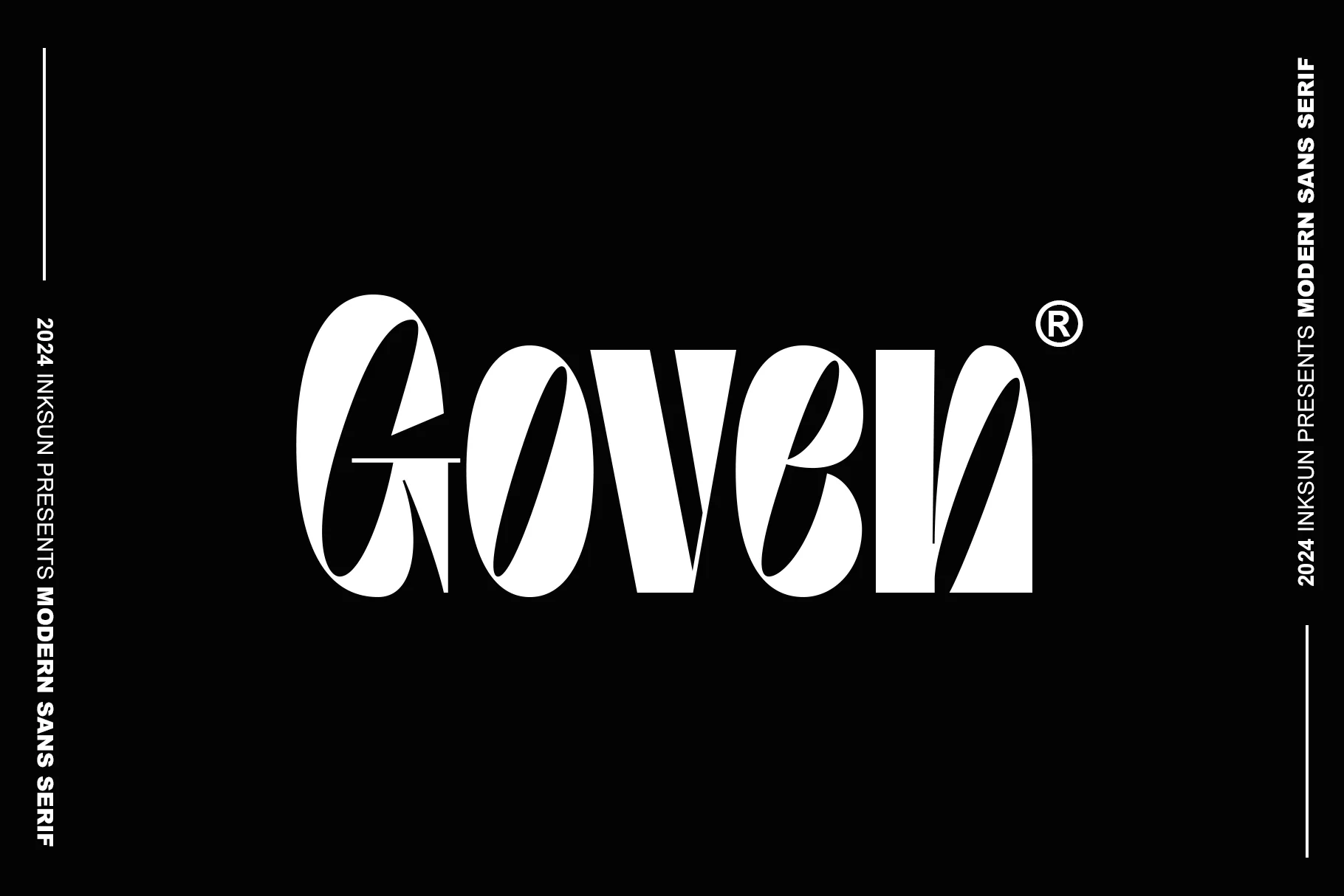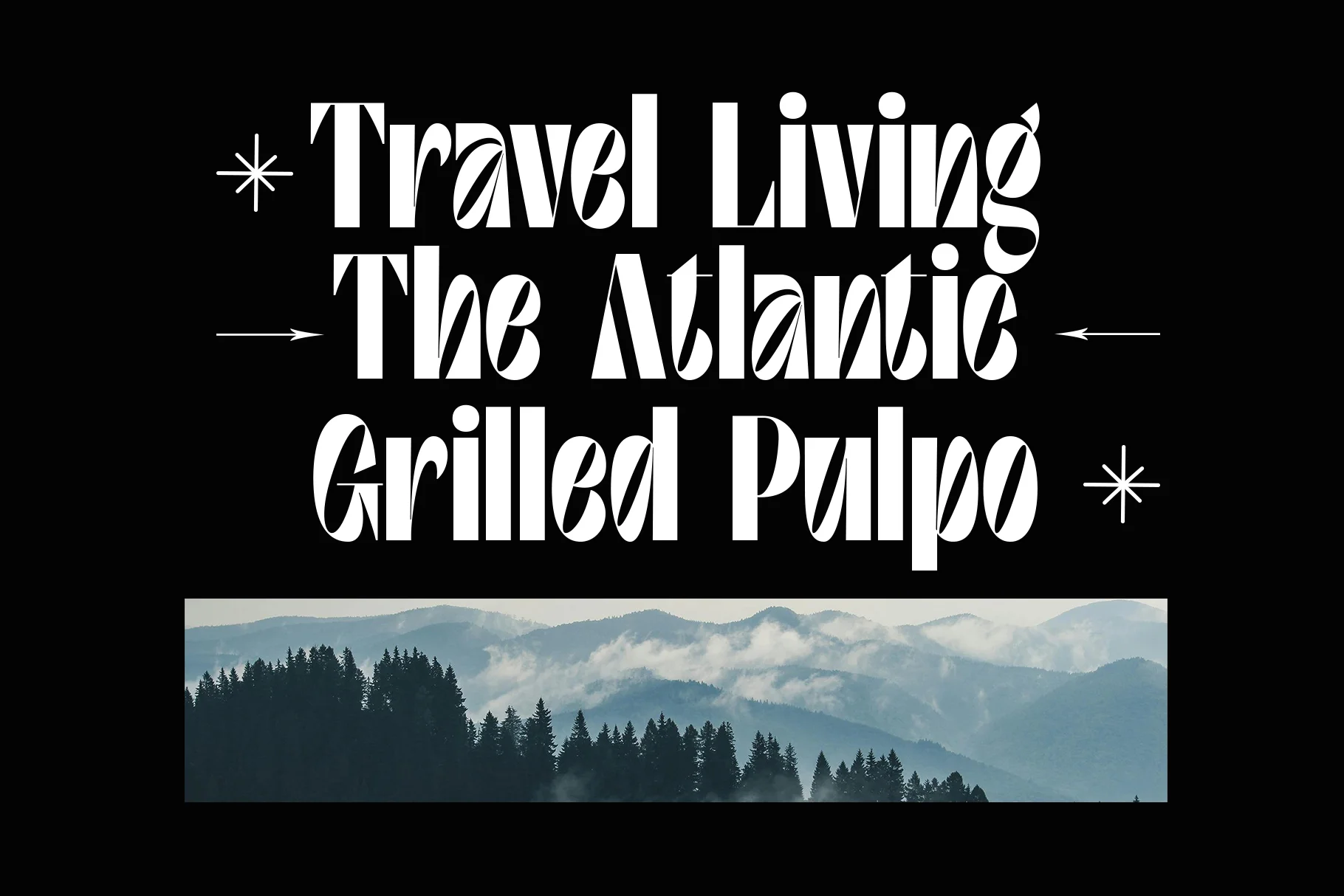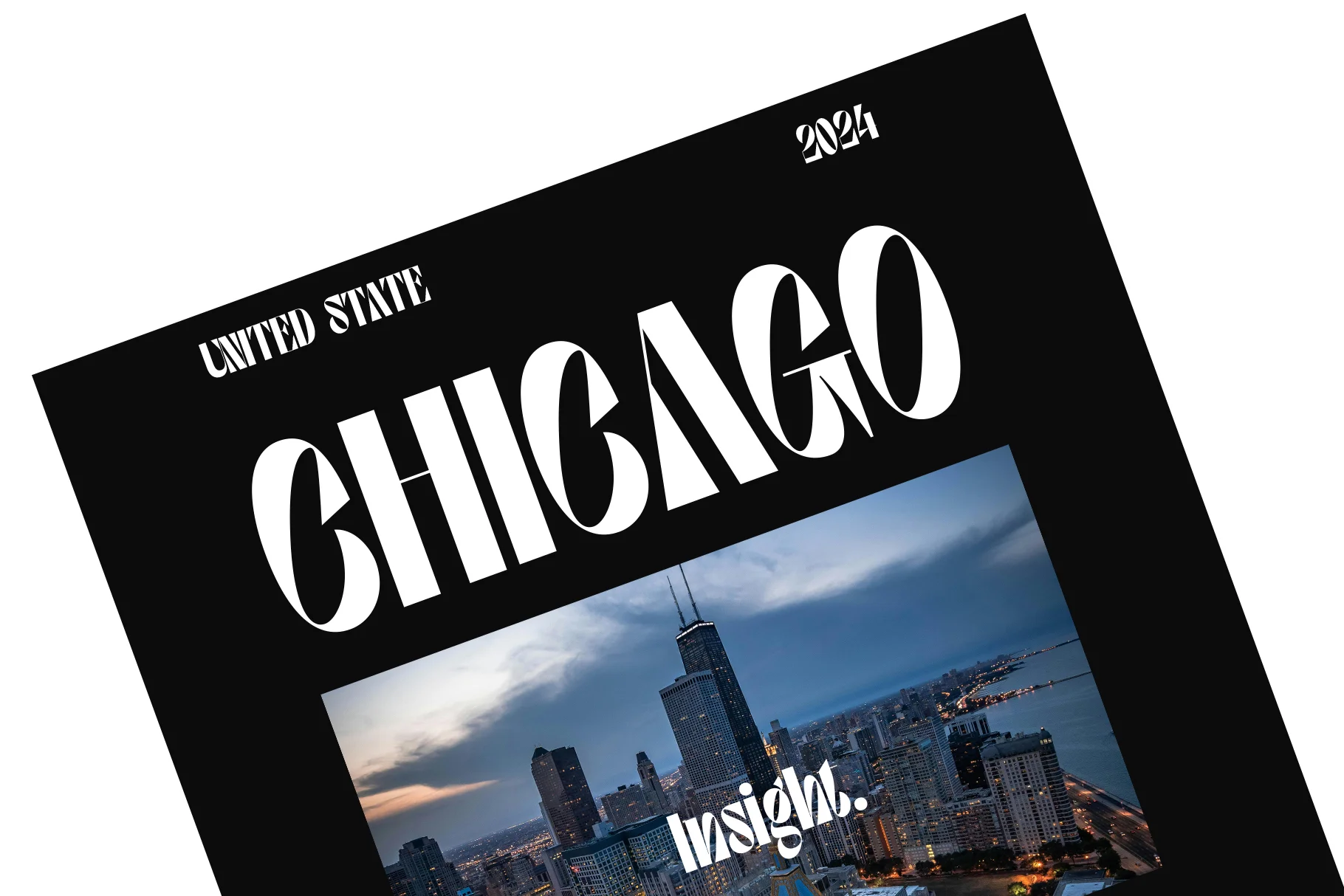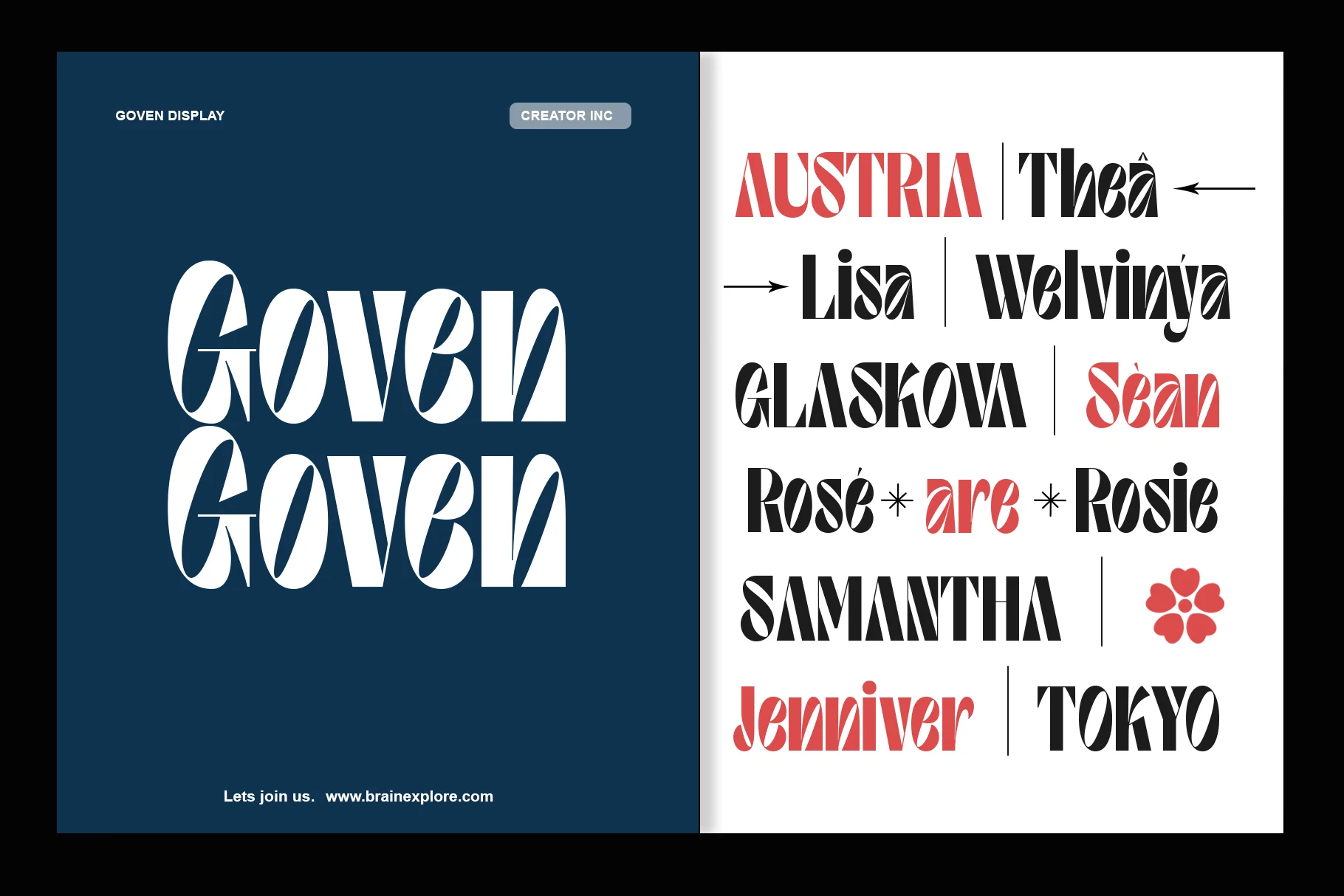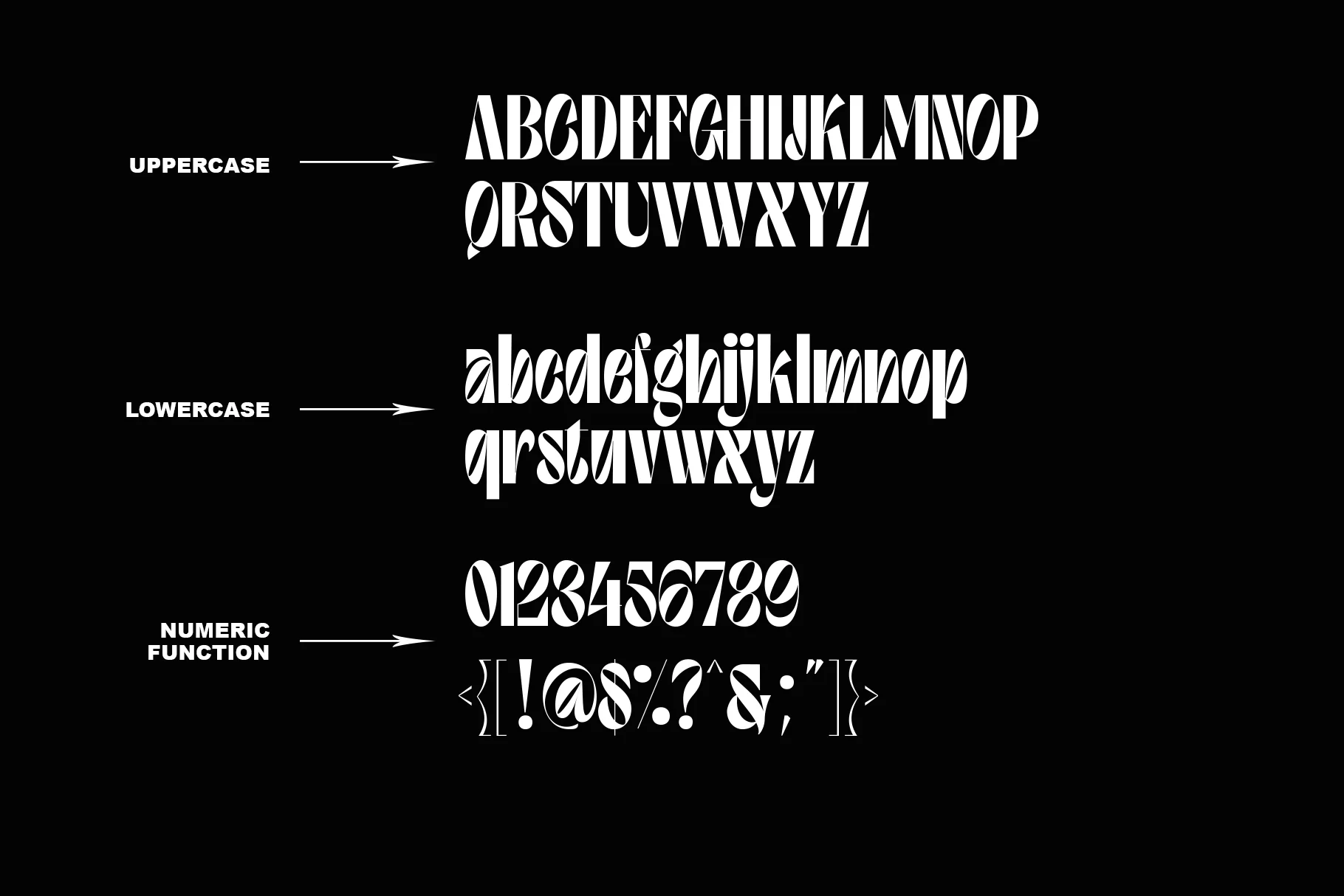
Goven
Goven is a modern sans serif font that embraces a minimalist concept while still maintaining a strong and unique visual identity. This font looks very futuristic and stylish.
- Visual Characteristics: Emphasizes high contrast between thick letter stems and sharp, beveled corners, creating a dynamic visual effect.
- Features: Designed with a clean, modern sans serif structure yet with a strong character for display use.
- Usability: Highly effective for fashion magazine headlines, high-end brand logos, contemporary event posters, and modern editorial designs.